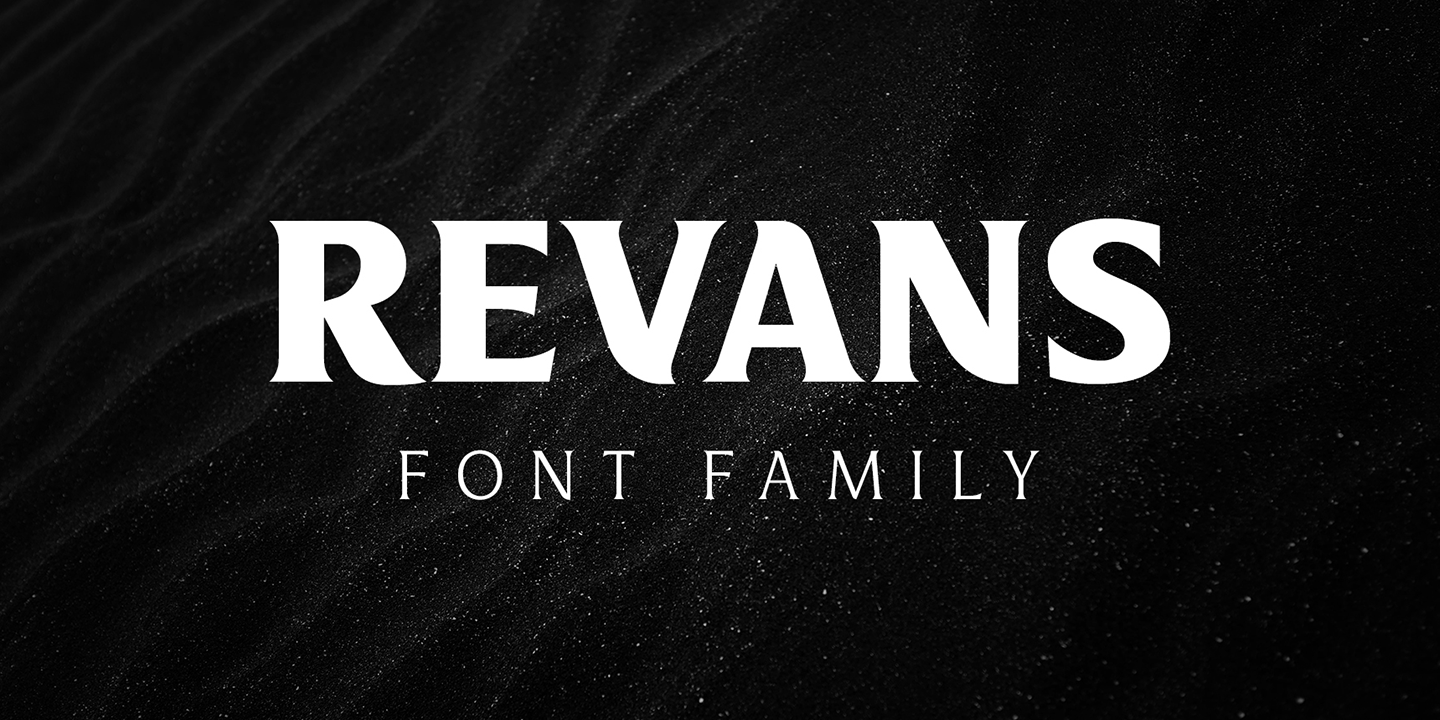
Revans Font is perfect for dramatic movie titles, intense gaming graphics, powerful thriller book covers, dark action posters, competitive sports branding, intense fitness campaigns, bold automotive designs, striking metal band logos, dramatic theatrical productions, and commanding brand identities that require dark sophistication and intense visual impact.
This font is exciting because it embodies the spirit of determination and intense focus with bold, commanding letterforms that project unwavering strength and dramatic presence, creating an atmosphere of power and relentless drive. Revans Font features sharp edges and powerful proportions that reflect the intensity and commanding authority essential for brands that demand respect and project uncompromising strength in competitive environments.
Revans Font family includes Regular, Bold, Dark, Intense, Power, Command, Dramatic, and Impact versions, plus strong symbols, dramatic ornaments, power elements, and commanding design features that enhance the intense aesthetic and provide comprehensive solutions for high-impact and dramatic applications.
For dramatic and high-impact design projects, Revans Font Free Download delivers unmatched intensity and commanding presence. The font's powerful letterforms and dramatic character make it perfect for entertainment brands, competitive sports, and intense marketing campaigns seeking to communicate strength, determination, and commanding authority. Its bold design appeals to audiences who appreciate power and dramatic impact. The character set includes intense alternates and dramatic variations that maximize visual strength and brand authority. Professional designers appreciate its ability to convey both raw power and sophisticated control while maintaining excellent readability across dramatic marketing, intense branding, and commanding communications, making it essential for brands that want to project the relentless determination and commanding intensity that defines powerful leadership and uncompromising excellence in competitive markets and high-stakes environments.